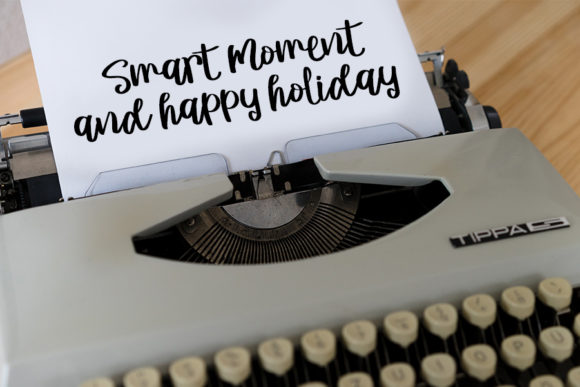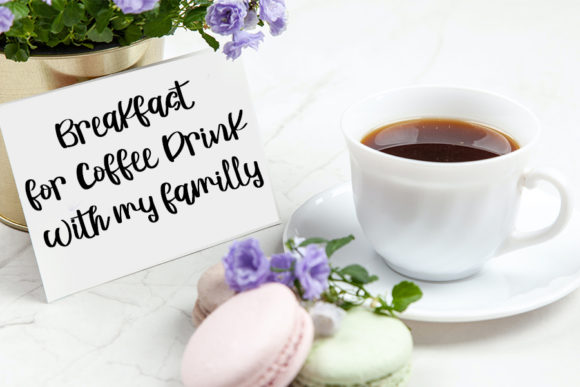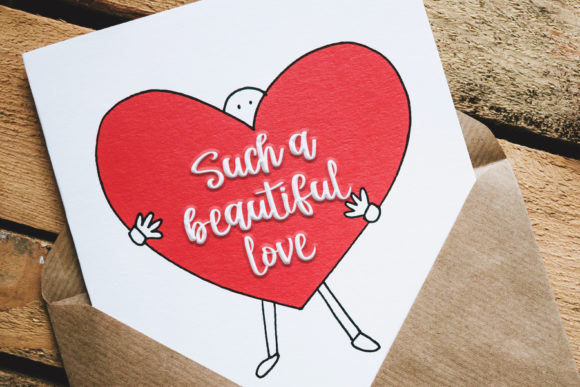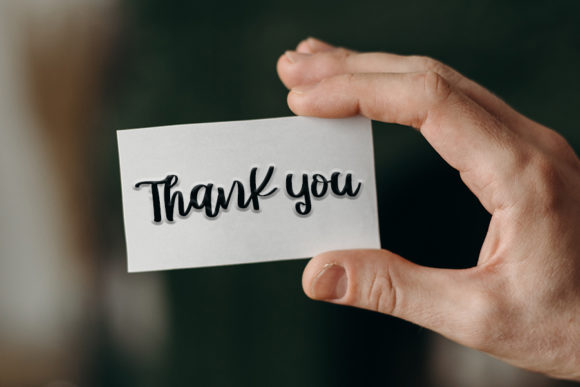
Unlock the Magic of Beautiful Winter Font
As you sit by the fireplace, sipping hot cocoa and watching the snowfall gently outside, you can’t help but feel inspired. The cozy atmosphere and twinkling lights spark a creative flame within you. You envision a beautiful winter wonderland, and the perfect font to bring it to life is just what you need. Enter the Beautiful Winter Font – a sweet and flowing handwritten font that will make your designs shine like the stars on a clear winter night.
This masterpiece font is a must-have for any designer looking to add a touch of elegance and sophistication to their projects. With its distinct and well-rounded letters, the Beautiful Winter Font is sure to captivate your audience and leave them in awe. Whether you’re creating a festive holiday card or a romantic winter-themed wedding invitation, this font is the perfect choice to make your design truly special.
Beautiful Winter Font Key Features
- Font Family: Beautiful Winter, a unique and elegant script font designed to evoke a sense of winter wonder.
- Unique Characteristics: Beautiful Winter features intricate flourishes, flowing connections, and a touch of whimsy, making it ideal for branding, invitations, and other creative projects.
Beautiful Winter Font Review
I’ve had the chance to work with the “Beautiful Winter Font” and I must say, it’s a mixed bag. Here’s my honest take.
- Unique aesthetic: The font has a distinct, wintery feel to it that’s perfect for holiday-themed projects or designs that evoke a sense of coziness.
- High-quality glyphs: The font includes a wide range of glyphs, including swashes, ligatures, and ornaments, which add to its overall charm.
- Good legibility: Despite its ornate design, the font is surprisingly easy to read, making it suitable for body text as well as headlines.
- Limited language support: The font only includes glyphs for a limited number of languages, which may be a drawback for designers working on multilingual projects.
- Lack of bold weights: While the font includes a range of weights, it’s missing a bold weight, which can make it difficult to create bold headlines or accents.
- Not suitable for small text sizes: Due to its ornate design, the font can become difficult to read at small text sizes, which may limit its use in certain applications.
Overall, I think the “Beautiful Winter Font” is a great choice for designers looking for a unique, wintery aesthetic. However, its limitations may make it less suitable for certain projects or applications. With a bit of careful planning and consideration, though, it can be a great addition to any designer’s toolkit.
Tips: Use the Beautiful Winter Font for titles and headings to add a touch of winter wonder to your designs.
Tips: Use the Beautiful Winter Font for text overlays on winter-themed images or as a title for your designs.
Tips: Use the Beautiful Winter Font for headings and titles to add a touch of winter magic to your presentations and documents.
The Beautiful Winter Font is perfect for:
- Winter-themed designs and projects.
- Christmas and holiday cards.
- Winter sports and outdoor activities.